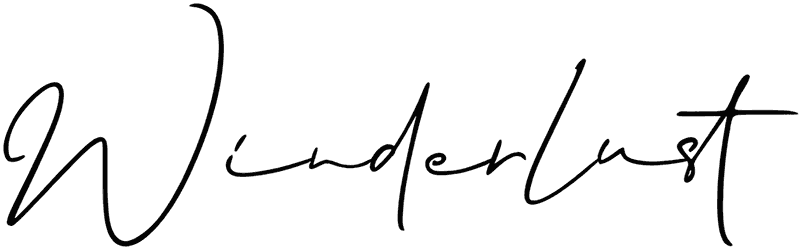
Winderlust Font
Winderlust, an autograph font, will give your digital work an organic feel. Despite its unreadability, it has found widespread use as a design element for stationery, greeting cards, and even signature motifs.